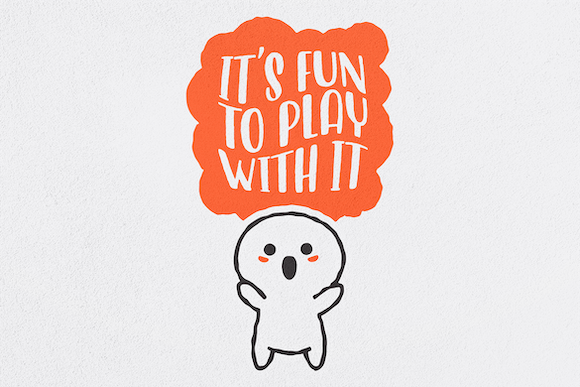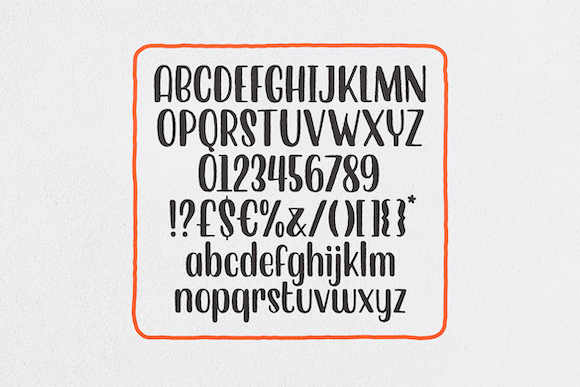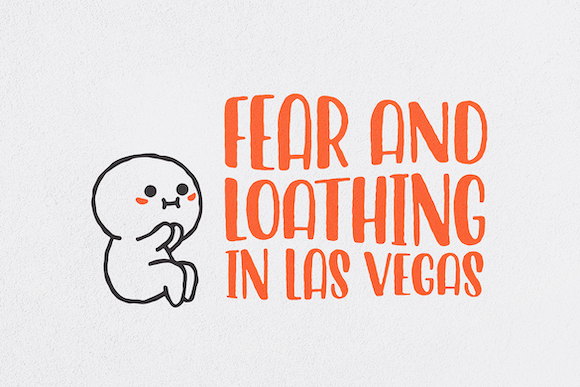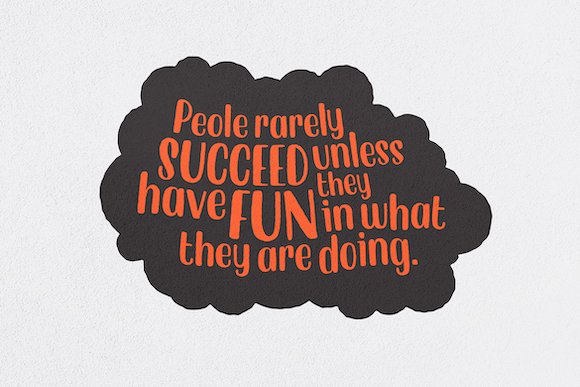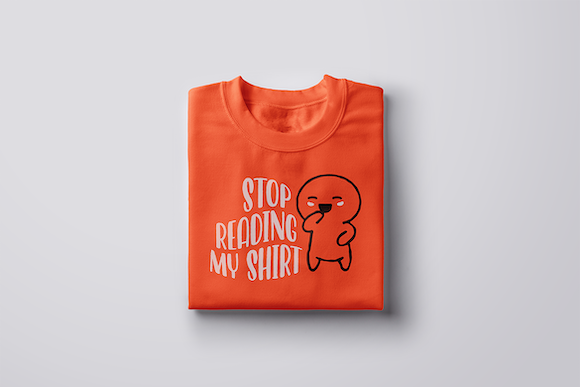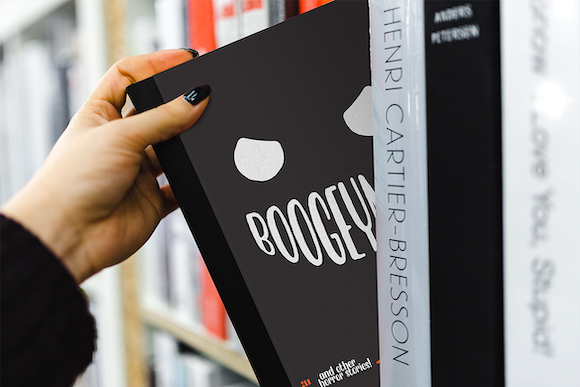
Have you ever stared at a blank page, feeling the weight of a blank canvas in front of you? The blank page syndrome is a common affliction for creatives, but it can also be the spark that ignites a brilliant idea. For me, it was the discovery of the Ballyhoo Font that lit the flame of inspiration. This stunning script font has a way of transporting you to a world of whimsy and wonder.
The Ballyhoo Font is a playful and versatile script that’s perfect for adding a touch of personality to your designs. Whether you’re a graphic designer, a writer, or a social media manager, this font is a valuable addition to your toolkit. With its cool vibe and charming characters, the Ballyhoo Font is sure to elevate your creative projects and leave a lasting impression.
Ballyhoo Font Key Features
- Font Family: Ballyhoo is a unique, hand-drawn font family designed to evoke a sense of playfulness and whimsy.
- Character Set: Ballyhoo includes a comprehensive set of characters, including uppercase and lowercase letters, numbers, punctuation marks, and special characters.
- Unique Characteristics: Ballyhoo features a distinctive, hand-drawn style with exaggerated lines and curves, making it perfect for creating eye-catching headings and titles.
- Font Pairing: Ballyhoo can be paired with a variety of font styles, including serif and sans-serif fonts, to create a unique and visually appealing typographic look.
Ballyhoo Font Review
Overall, I think the Ballyhoo Font is a fun, playful addition to any design project. ✨ It’s perfect for creating a whimsical or vintage vibe, especially when used for titles or headings.
Some of the things that work well with this font include:
- Its unique, hand-drawn aesthetic that adds a touch of personality to your design.
- Its wide range of weights and styles, which makes it easy to customize and adapt to different contexts.
However, I do have some reservations about the Ballyhoo Font:
- ⚠️ Its readability can be a bit of a concern, especially at smaller font sizes or in certain contexts.
- ⚠️ The font can sometimes feel a bit too ornate or cluttered, which may not be suitable for all design projects.
Overall, I think the Ballyhoo Font is a great choice for designers who want to add some flair and personality to their work. While it may have some limitations, its unique aesthetic and versatility make it a valuable addition to any design toolkit.
Tips for Getting the Most Out of Ballyhoo Font
Use Ballyhoo Font for headings and titles to add a touch of elegance and sophistication. Combine it with other fonts for a unique and eye-catching look. Experiment with different font sizes and styles to achieve the desired effect.
Ballyhoo Font is ideal for creating eye-catching headings, titles, and posters. It’s also great for adding a touch of sophistication to business cards, resumes, and other professional documents.